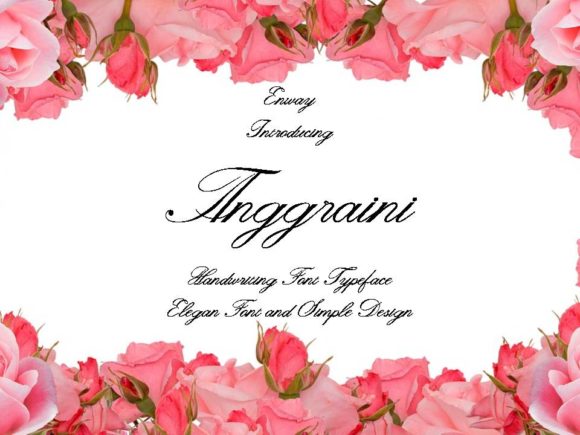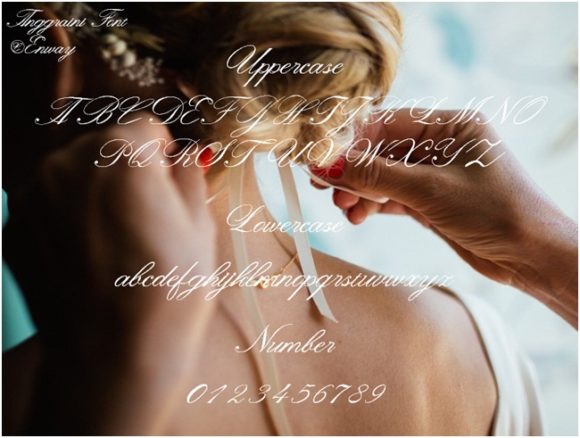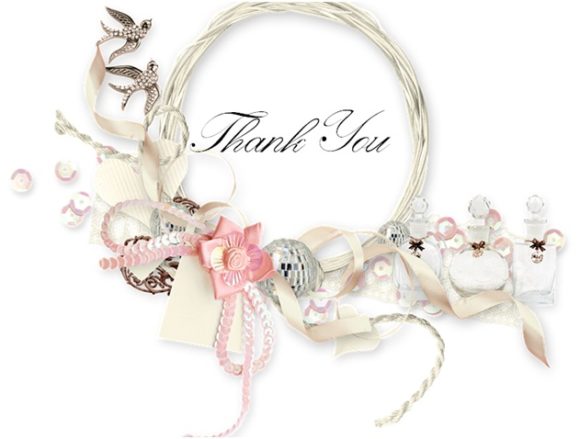
Anggraini Font
About Anggraini Font
Anggraini is an incredibly stylish and elegant script font with an effortlessly beautiful design. Fall in love with its simple design!